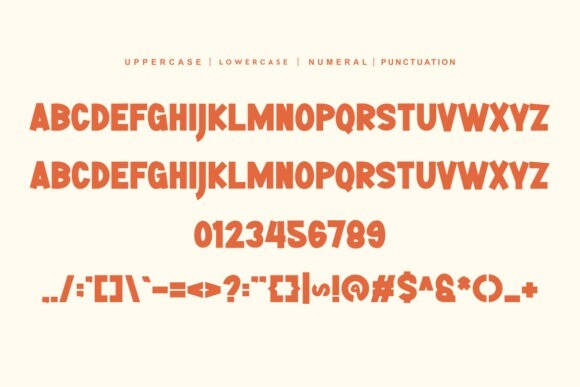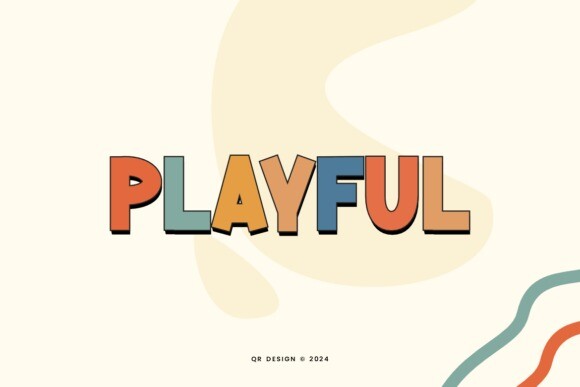
Goruday Font
Designer: qrdesignstd
Goruday Font is a bold, all caps display font featuring the perfect amount of trendiness. Whether you’re using it for crafting, digital designing, presentations or greeting cards making, it’s perfect!